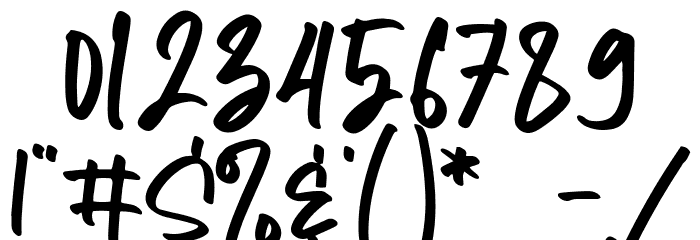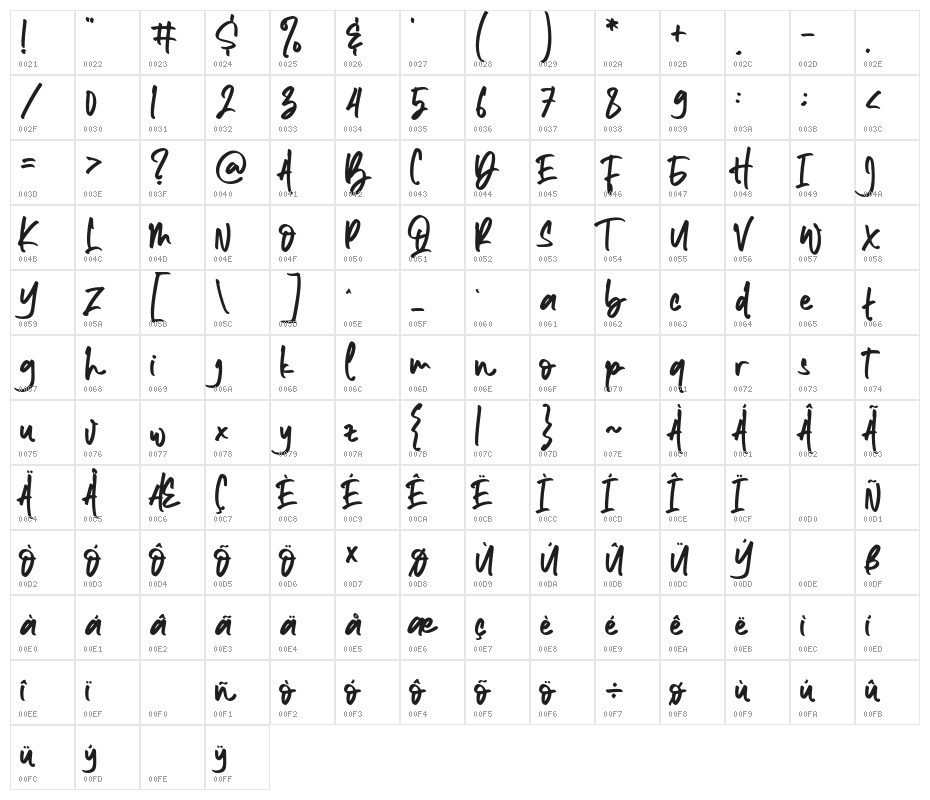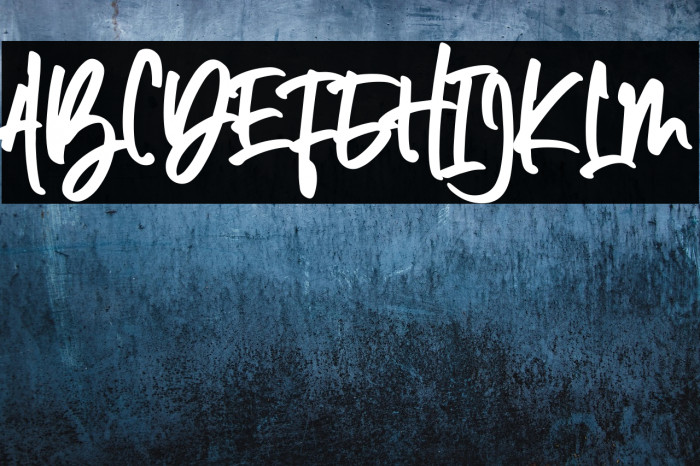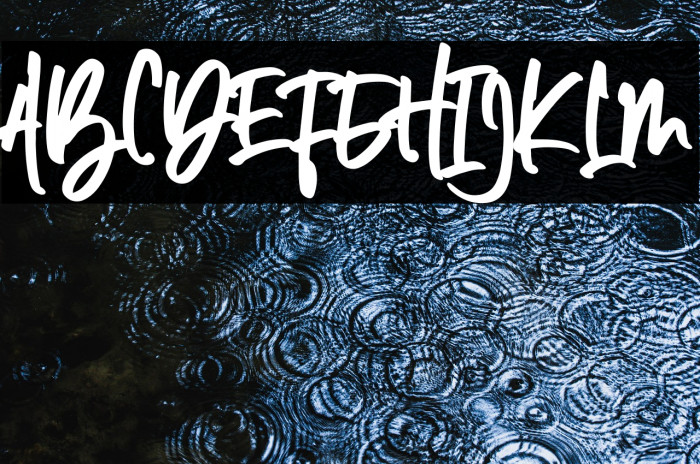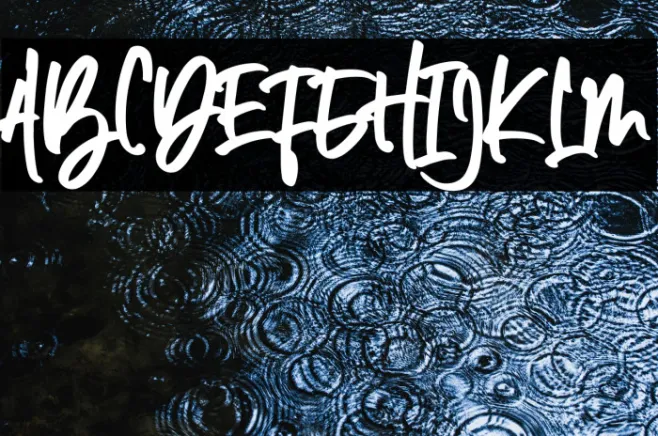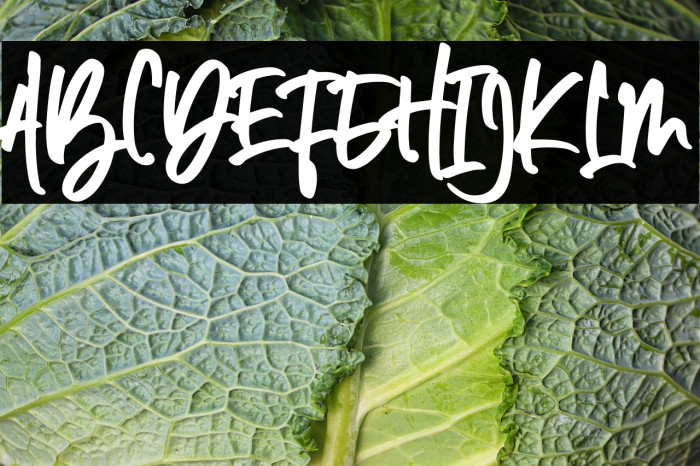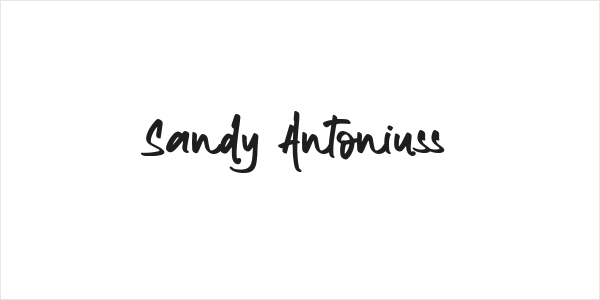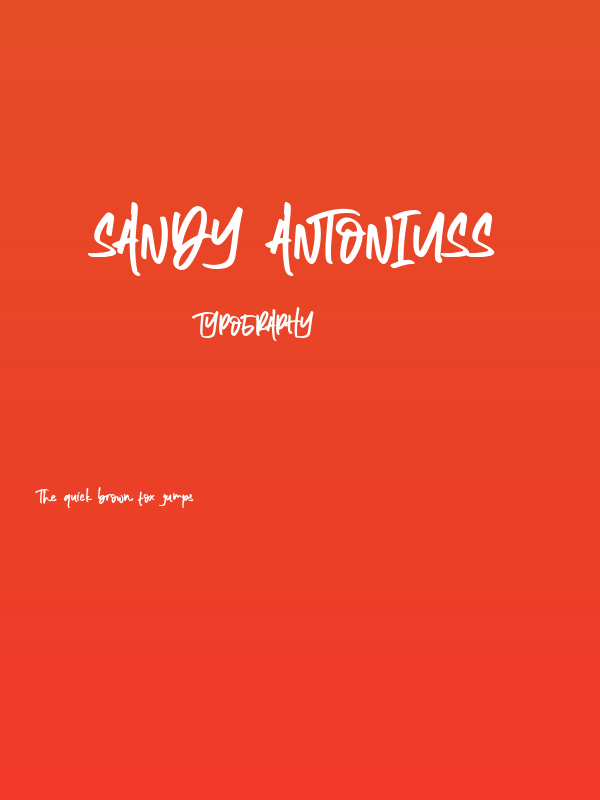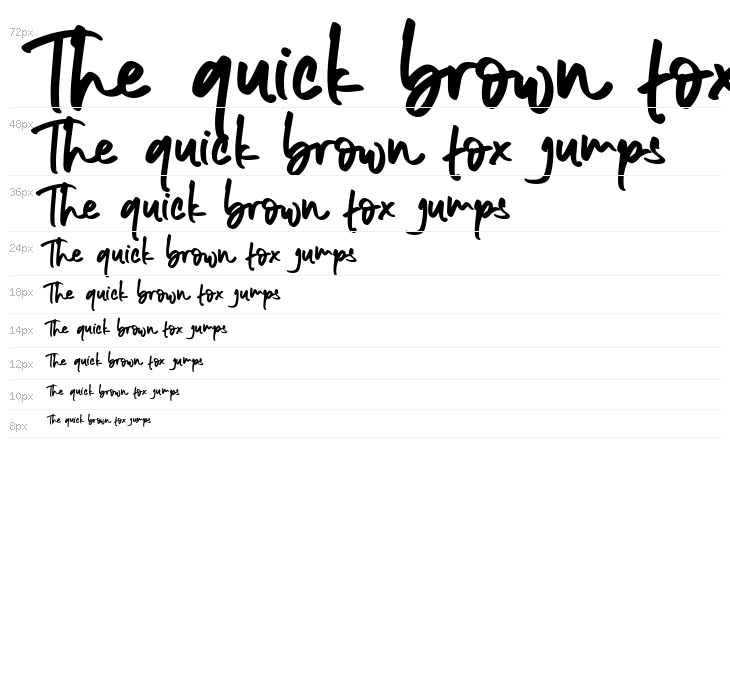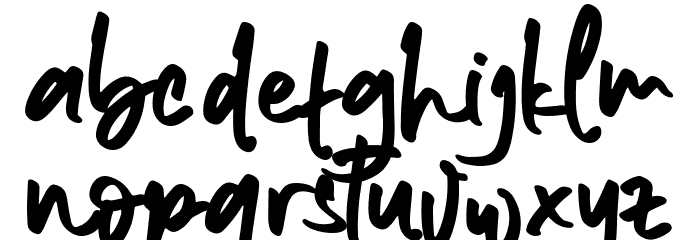
Sandy Antoniuss Font
Sandy Antoniuss Description
This font exhibits a bold, expressive handwritten style with a dynamic and energetic flow. The uppercase letters are tall and slightly condensed, while the lowercase letters maintain a consistent rhythm, adding to the overall fluidity. The strokes are thick and confident, with a slight slant that enhances the casual, yet assertive appearance. The numerals are bold and match the style of the letters, ensuring a cohesive look. Special characters are creatively integrated, maintaining the font's playful and artistic vibe. This font is perfect for projects that require a personal touch or a sense of spontaneity.
| Proposed Projects | Ideal for greeting cards, posters, branding, and social media graphics that need a personal and artistic touch. |